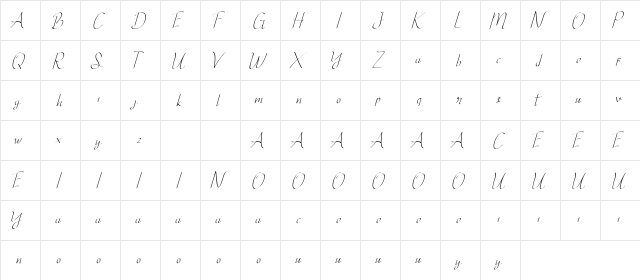
Ginger Spicedemo Italic
| Foundry | Edric Studio |
| Designer | Renata |
Design Context for Ginger Spicedemo Typeface
Ginger Spicedemo is a composed and adaptable typeface that performs quietly and consistently across a wide range of design contexts. Its italic angle brings a sense of urgency and motion to the letterforms.